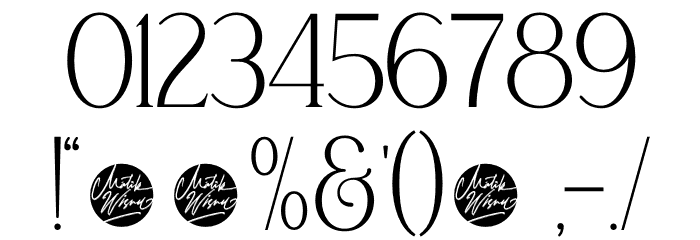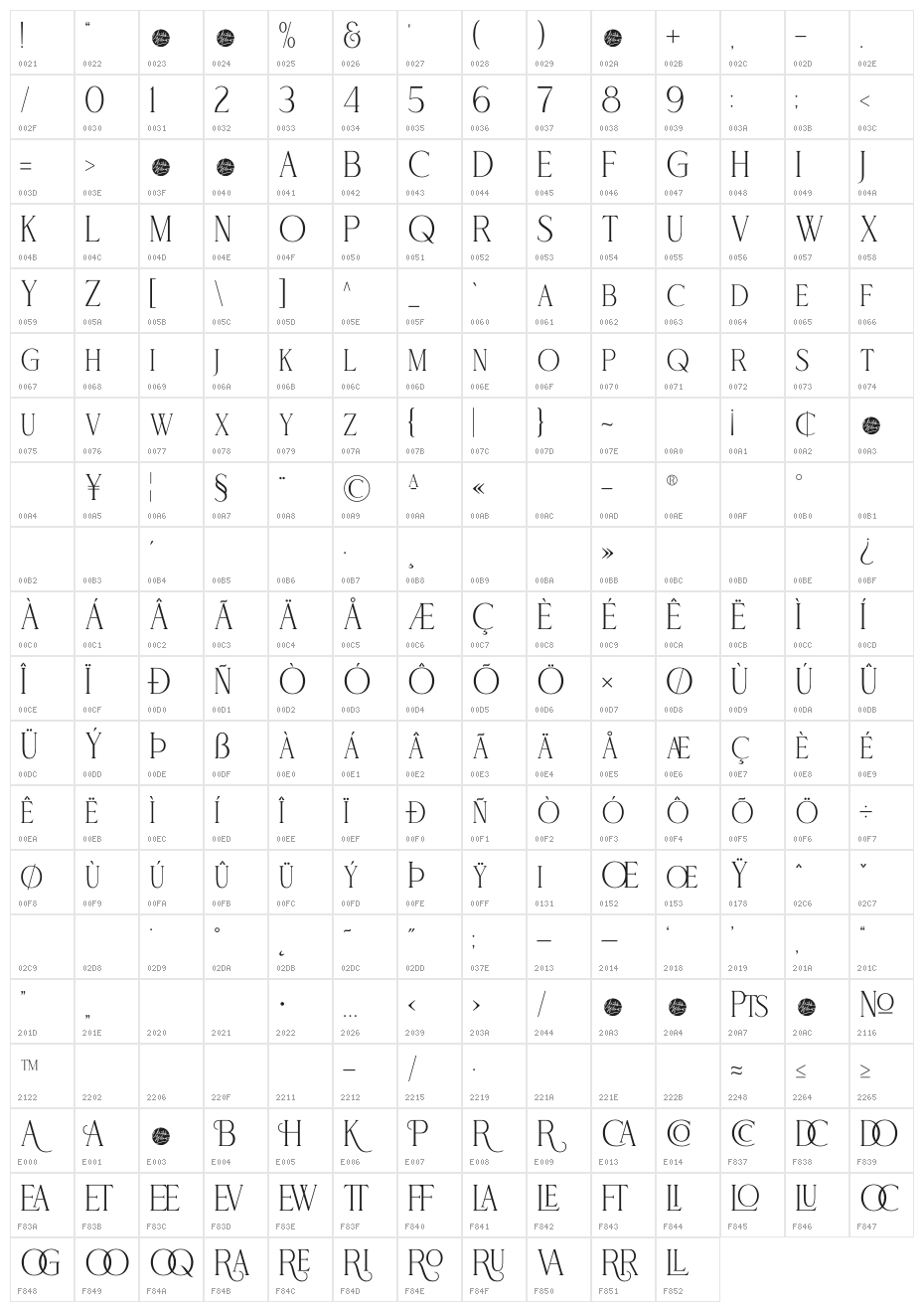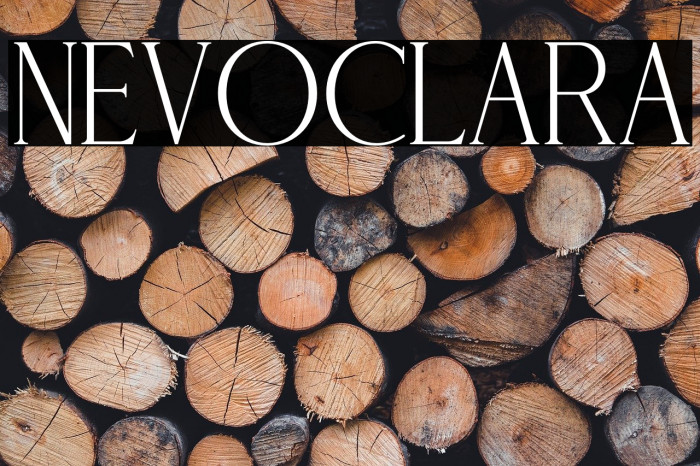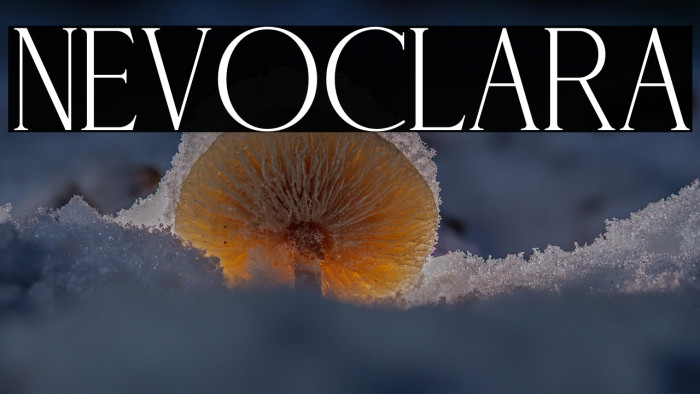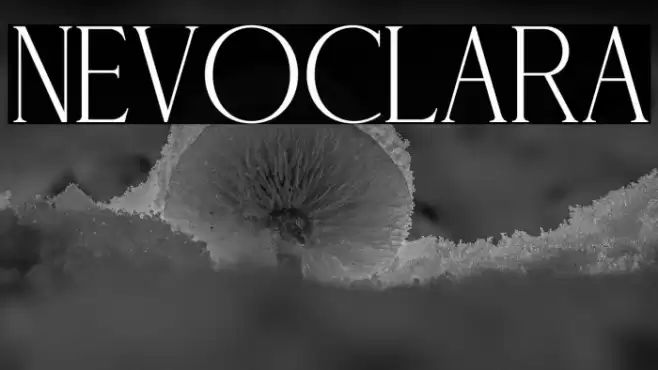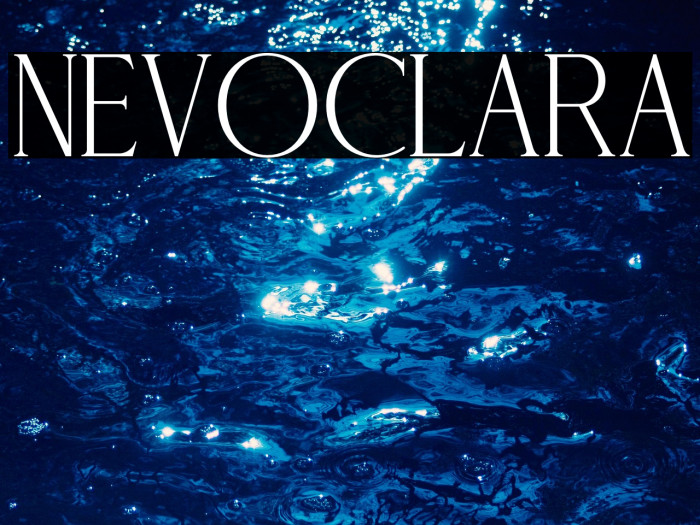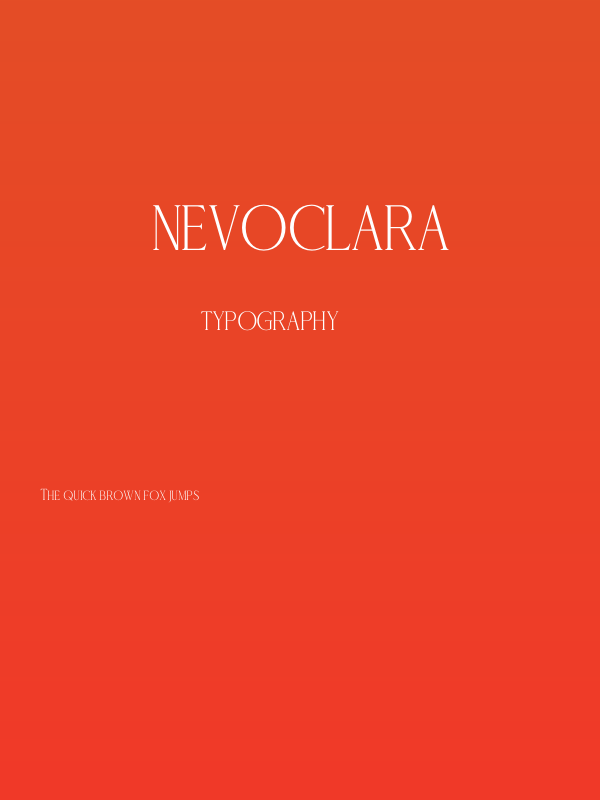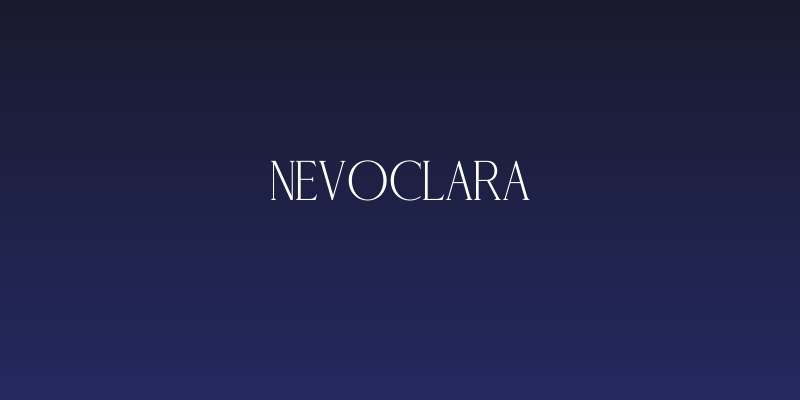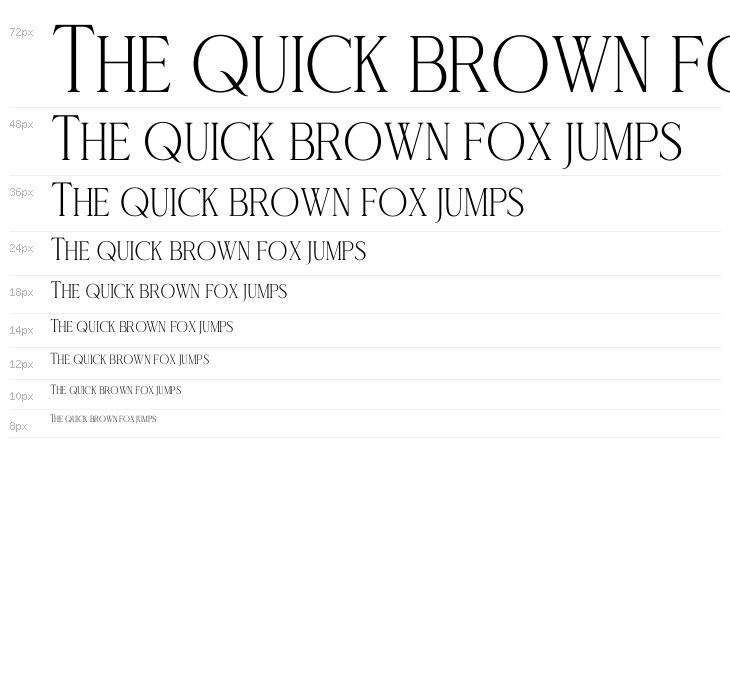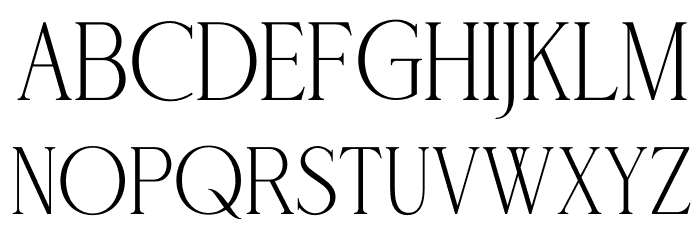
NEVOCLARA Font
NEVOCLARA Description
This font features a refined and elegant serif style, characterized by its thin, elongated strokes and high contrast between thick and thin lines. The uppercase letters exhibit a classic and sophisticated appearance, with sharp serifs and a balanced proportion. The lowercase letters maintain a similar elegance, offering a harmonious flow that complements the uppercase set. The numerals are designed with a consistent style, ensuring readability and aesthetic appeal. Special characters are crafted with attention to detail, adding to the font's versatility and charm.
| Use Case | Headlines, Logos, Editorial design |
| Proposed Projects | Ideal for luxury branding, editorial design, wedding invitations, and high-end product packaging. |